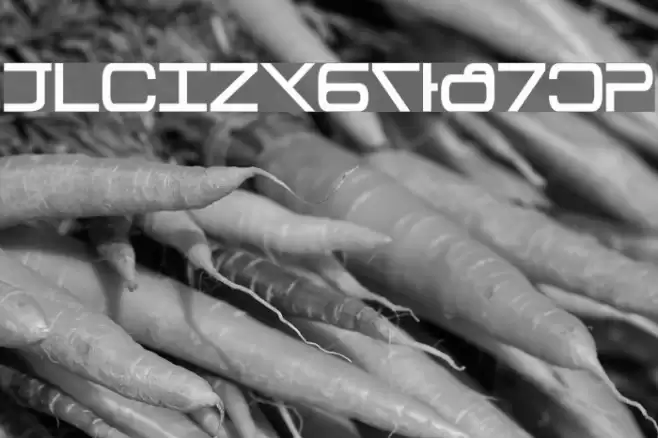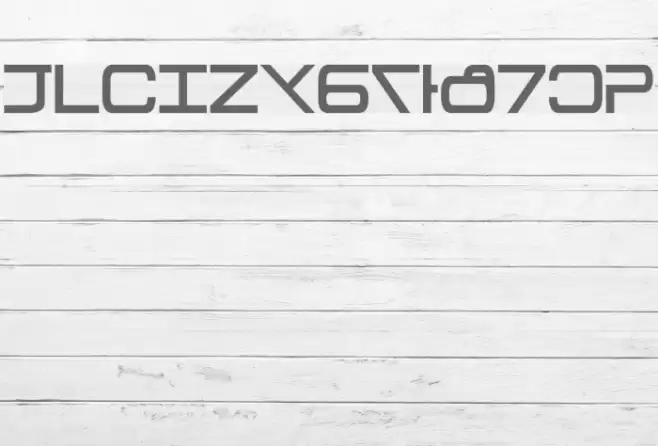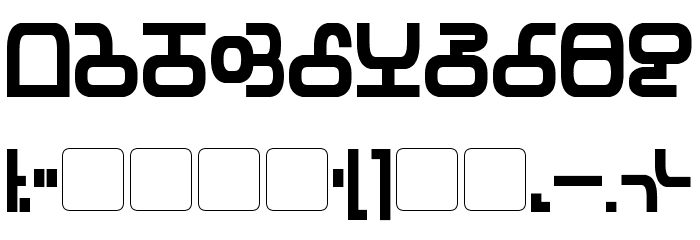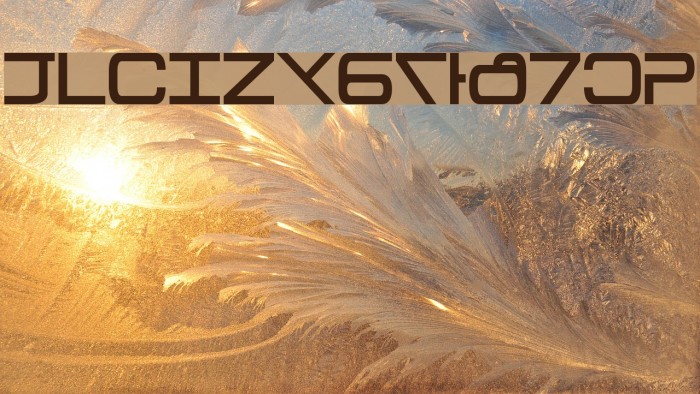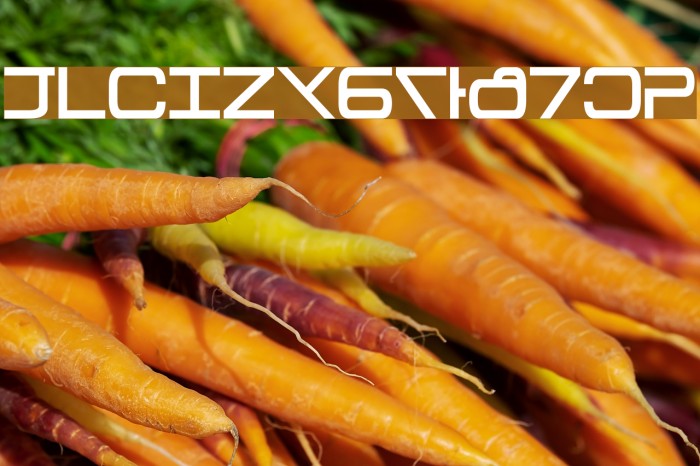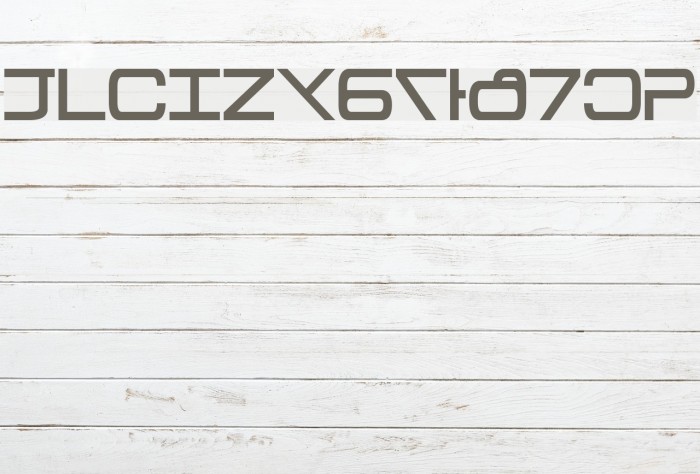
Tirolese Bold Font
Tirolese Bold Description
This font features a bold and futuristic design with geometric shapes and sharp angles. The characters are constructed with a consistent thickness, giving it a uniform and modern appearance. The uppercase and lowercase letters share similar structural elements, enhancing the cohesive look. The numerals and special characters follow the same design principles, ensuring visual harmony across all glyphs. This font's unique style makes it stand out, with a strong emphasis on symmetry and balance. Its boldness and distinctiveness make it suitable for projects that require a modern and eye-catching typeface.
A bold, geometric font with a futuristic and modern design from Uncategorized fonts.
- Proposed Projects: Ideal for technology branding, sci-fi movie posters, video game titles, and modern art installations.
- Overall Style: Futuristic